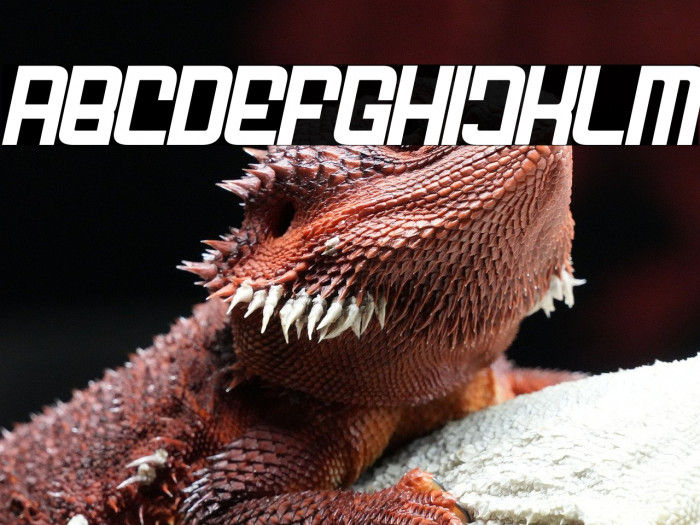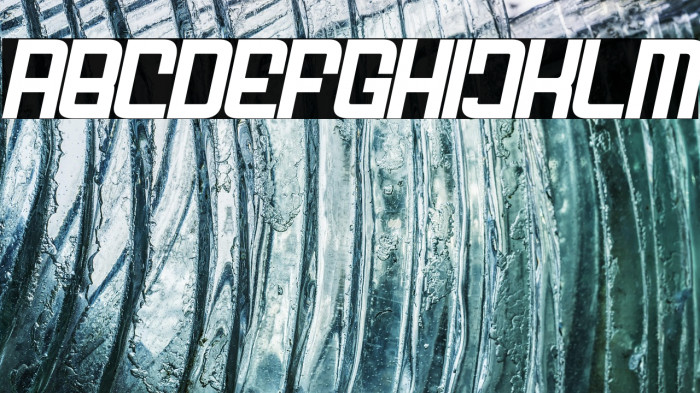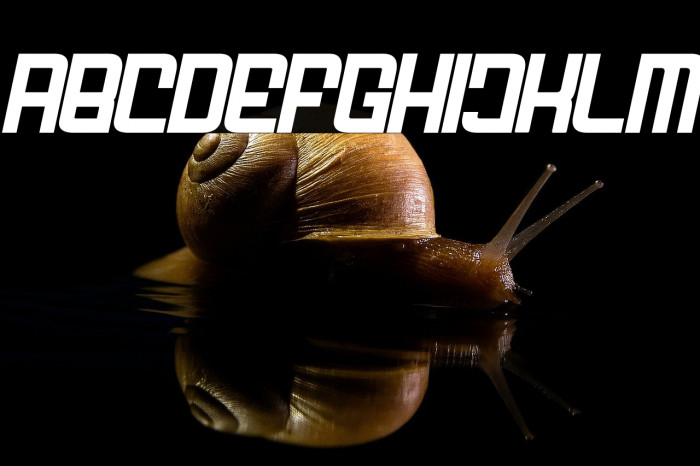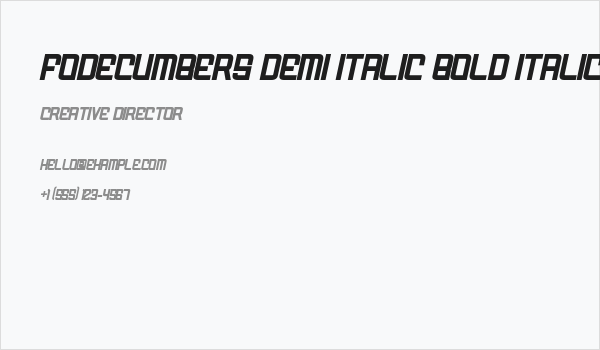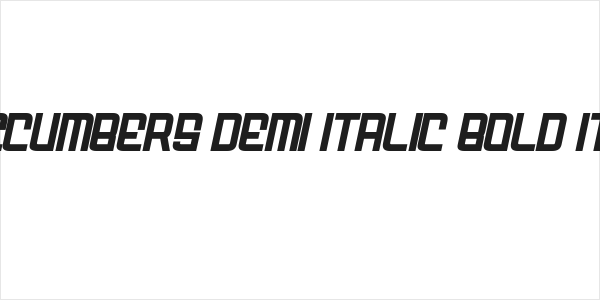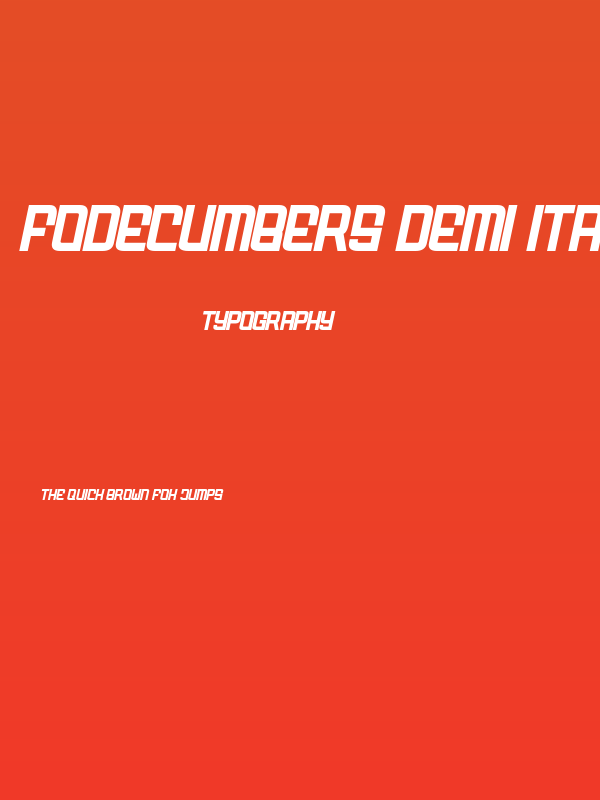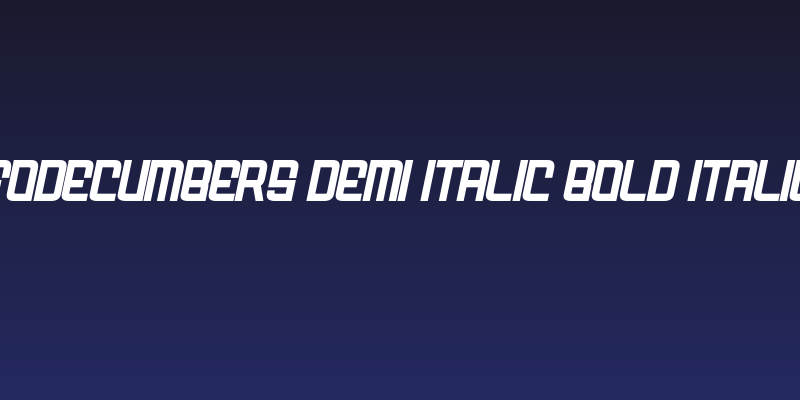
FODECUMBERS DEMI ITALIC Bold Italic Font
FODECUMBERS DEMI ITALIC Bold Italic Description
This font features a bold and italicized style with a modern, futuristic appearance. The characters are slightly condensed, giving a compact and efficient look. The strokes are thick and consistent, providing a strong visual impact. The angular design of the letters adds a dynamic and energetic feel, making it suitable for attention-grabbing headlines or branding. The numbers and special characters maintain the same bold and italicized characteristics, ensuring uniformity across all elements.
| Proposed Projects | Ideal for futuristic branding, sports team logos, dynamic posters, and tech-related projects. |